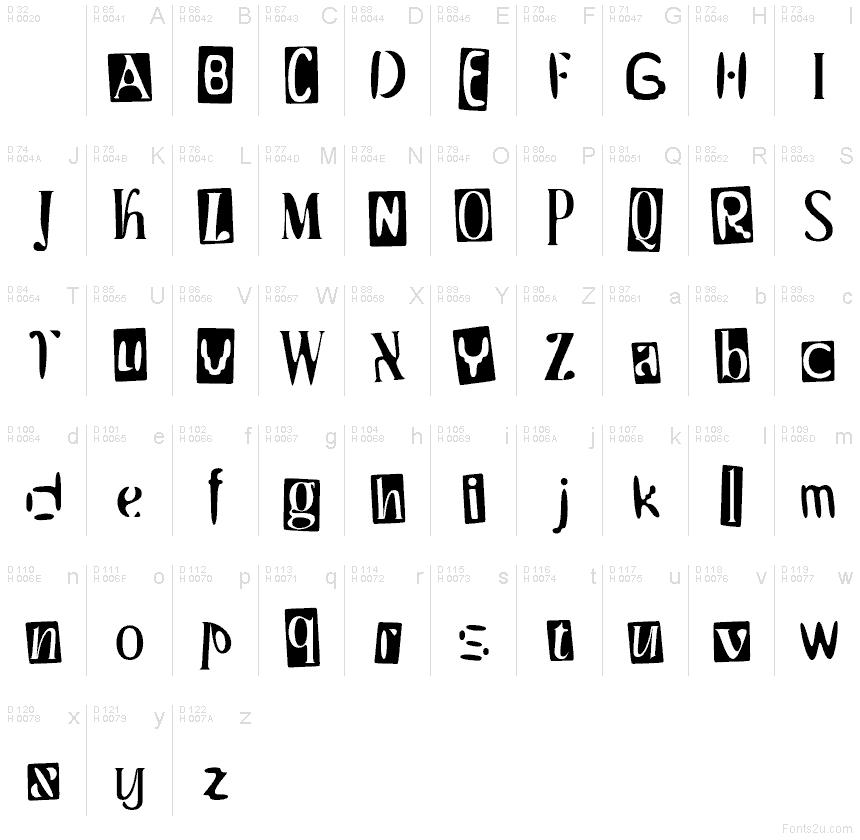
CSGoenkaDrawn-Regular Demo
CS Goenka Drawn font by Craft Supply Co. is a free bold hand-drawn decorative display font. It stands out with inky, cut-paper shapes that toggle between chunky blocks and skinny, whittled strokes, leaving quirky, scooped counters that feel tactile and lively. The rhythm is bouncy yet readable, with organic edges that look sketched, scanned, and slightly scuffed.
Using CS Goenka Drawn brings instant personality to kids’ branding, craft packaging, poster series, festival flyers, café boards, and playful YouTube thumbnails. This free font thrives at larger sizes where its grainy contours and offbeat spacing add charm without shouting. For balance, pair it with a neat geometric sans and add a touch of tracking to let those irregular forms breathe.